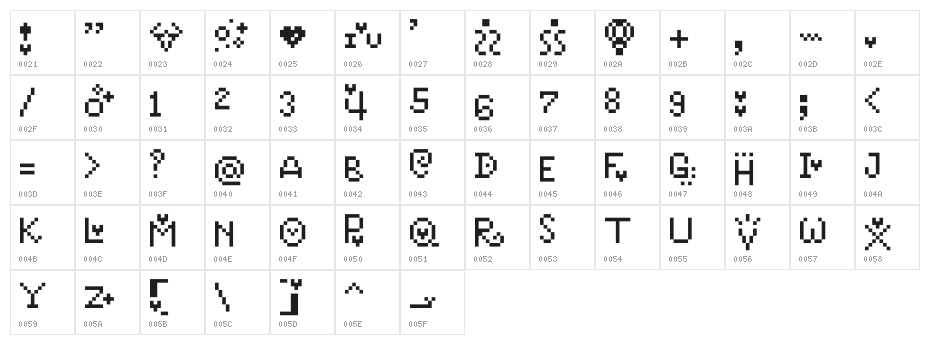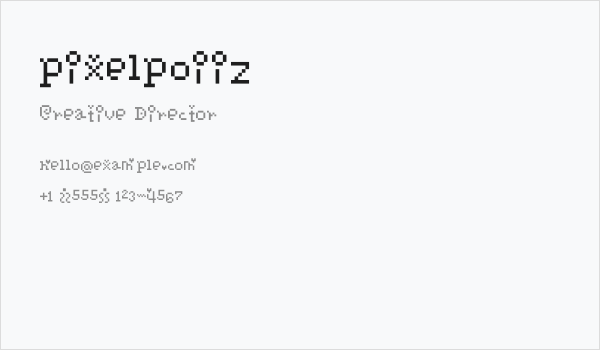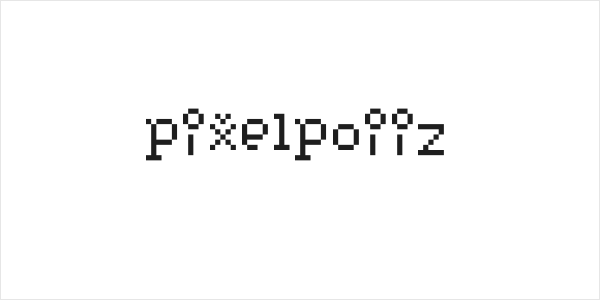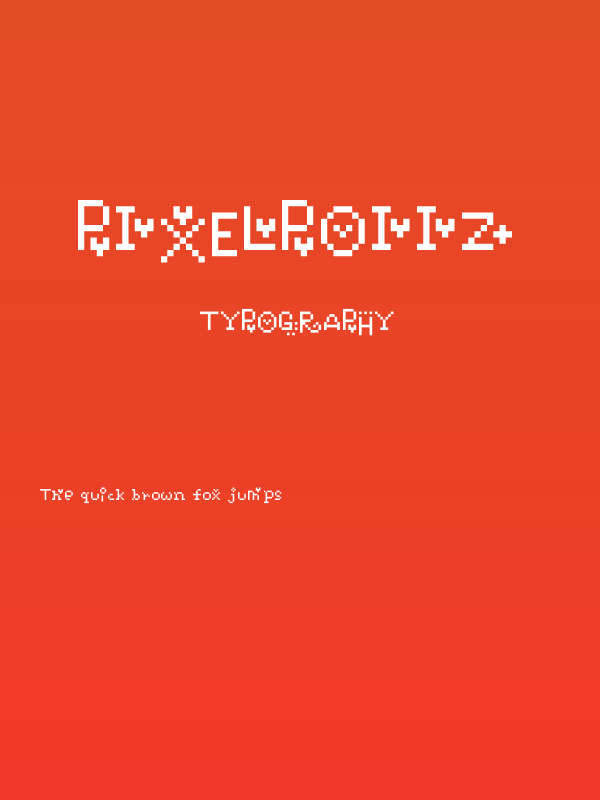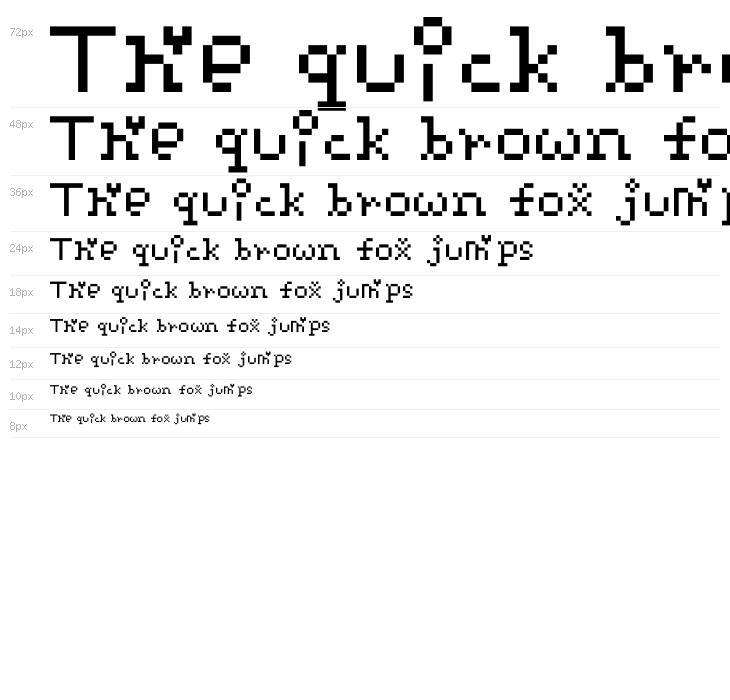
pixelpoiiz Font
pixelpoiiz Description
This font is a pixelated, retro-style typeface that evokes the aesthetics of early digital displays and classic video games. Each character is composed of small, square pixels, giving it a blocky and geometric appearance. The uppercase and lowercase letters maintain a consistent height, while the numbers and special characters blend seamlessly with the overall design. The font's simplicity and clarity make it highly legible, even at smaller sizes. Its nostalgic charm is perfect for projects that aim to capture a vintage digital feel.
| Proposed Projects | Ideal for video game design, retro-themed posters, digital art projects, and any creative work that requires a nostalgic digital touch. |